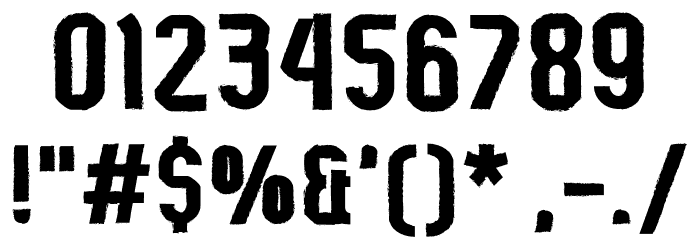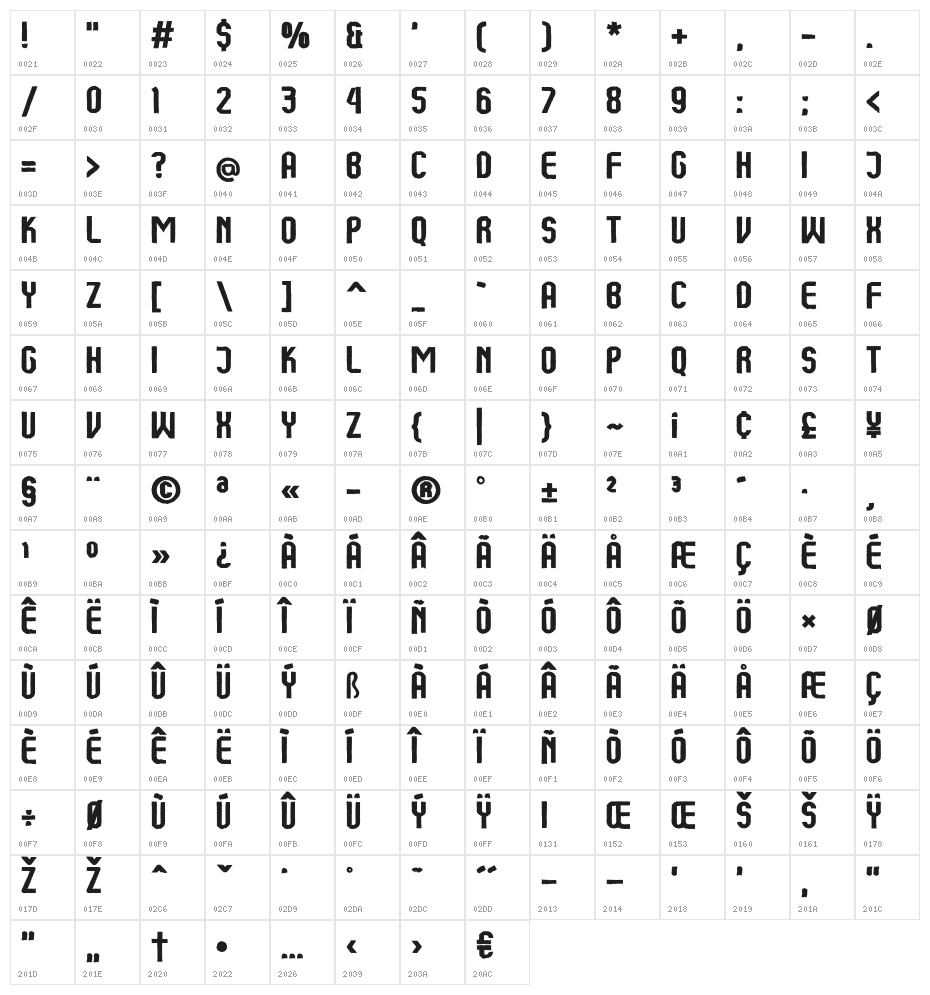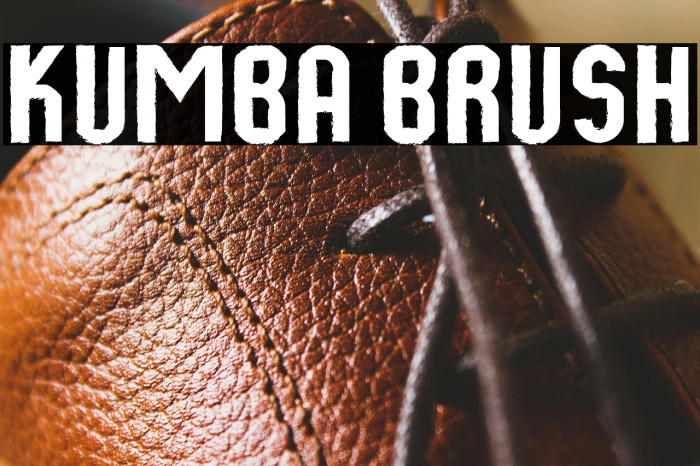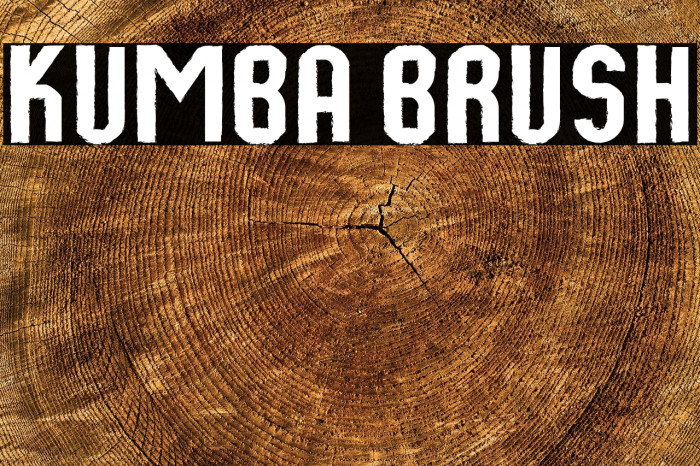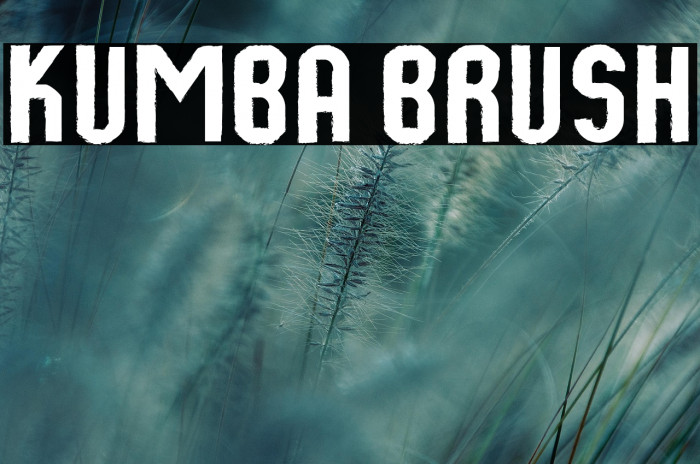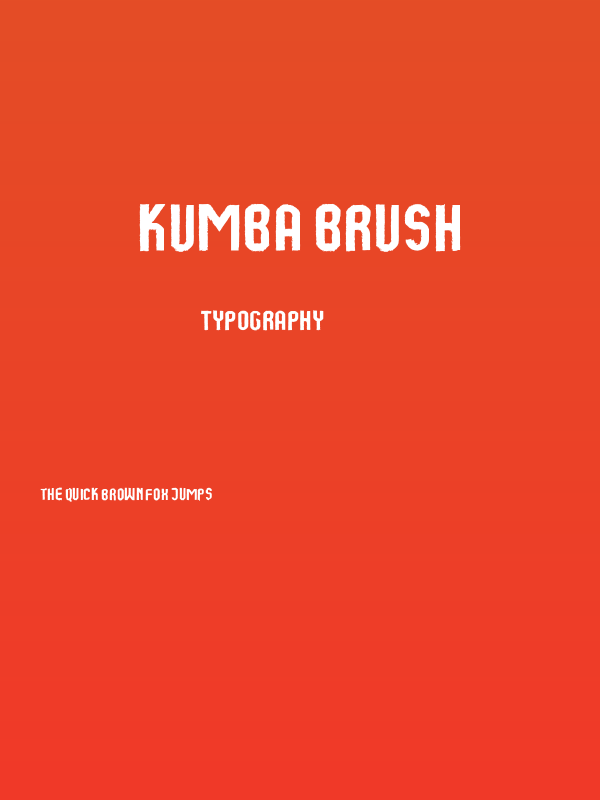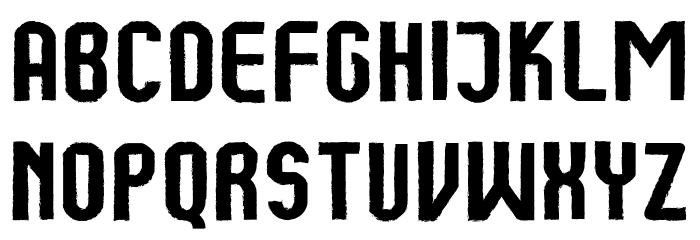
Kumba Brush Font
Kumba Brush Description
This font features a bold and dynamic brush style, characterized by its thick, textured strokes that convey a sense of energy and movement. The uppercase and lowercase letters maintain a consistent height, creating a uniform appearance across the text. The numerals and special characters are equally bold, ensuring readability and impact. The font's rugged edges and uneven lines give it a handcrafted feel, making it ideal for projects that require a personal touch. Its distinct style is suitable for eye-catching designs, where the text needs to stand out and make a statement.